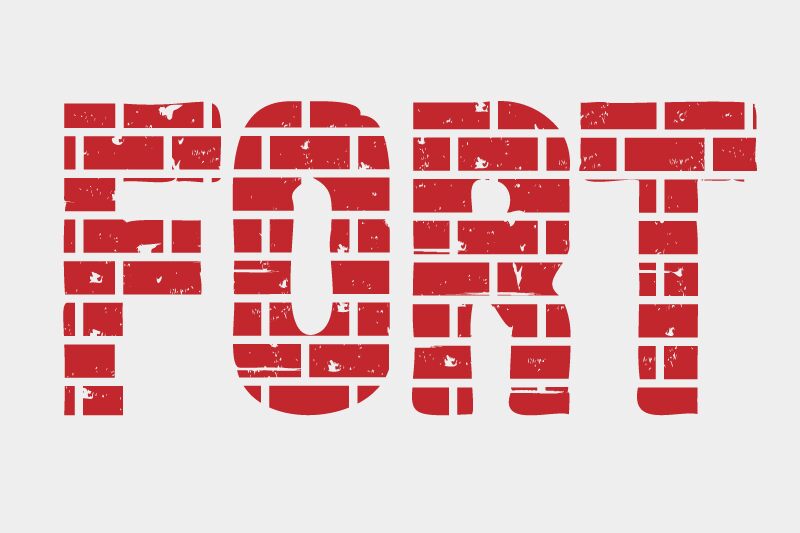
Fort Bold
Fort Bold font by Design Vector10 is a decorative display font with bold weight and condensed width. The typeface style takes on a blocky brick pattern in every letterform to create an industrial distressed urban look. Such rugged handwriting has a certain appeal that audiences who love creations within this particular genre can undeniably find attractive.
Some conceptual art and design niches benefit the most from this free display font. Those include album covers, videogame covers, movie posters, sport magazine headlines, fan fiction book covers, comics, cartoons, streetwear branding projects like t-shirts or caps etc. Use it for any of these projects and more.